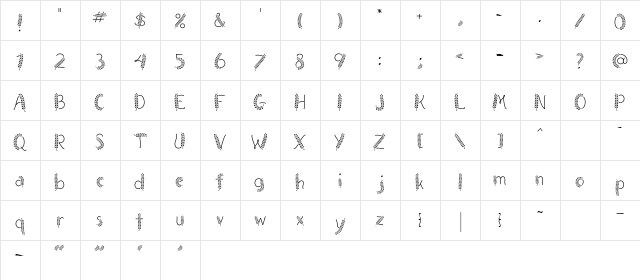
LD Ferns Regular
Design Context for LD Ferns Typeface
LD Ferns is a composed and adaptable typeface that performs quietly and consistently across a wide range of design contexts.